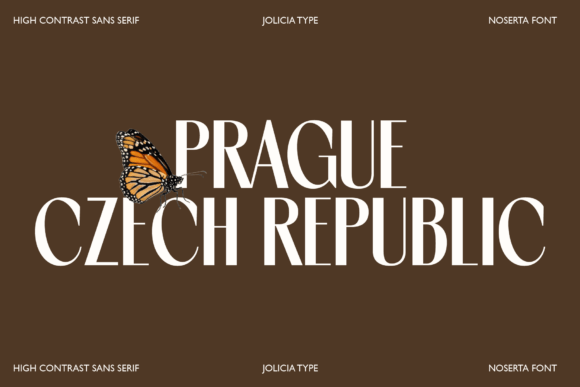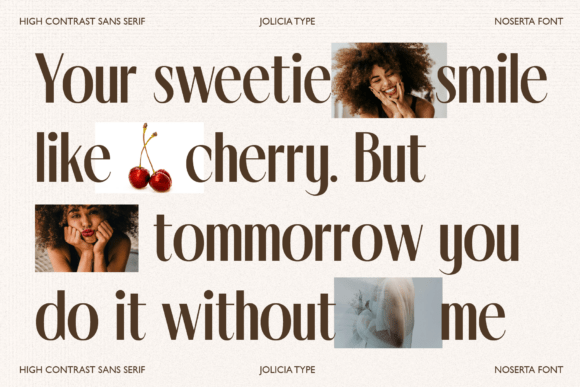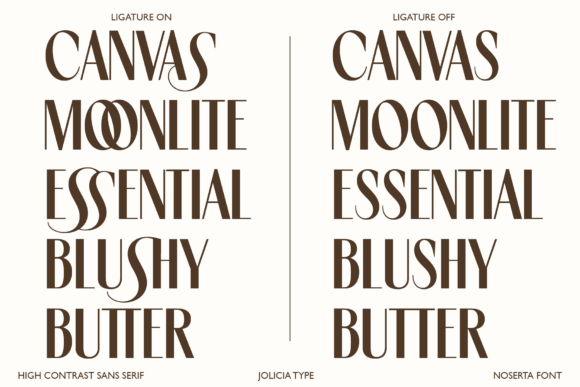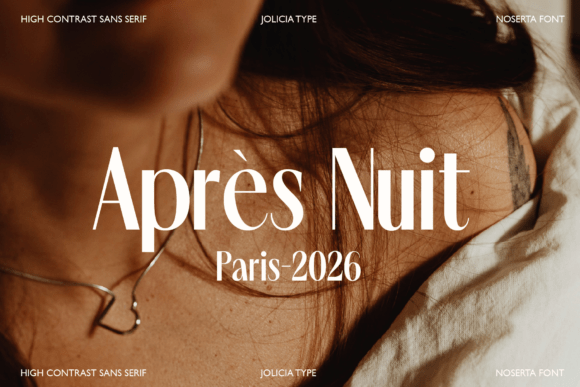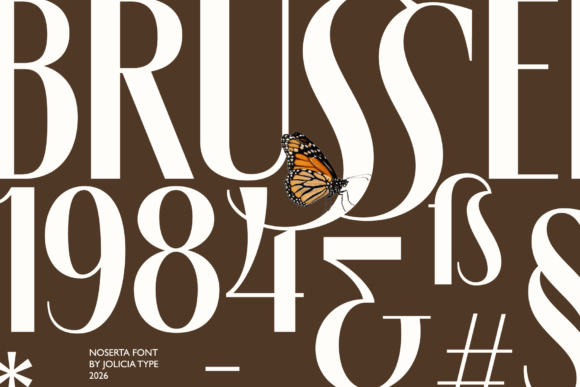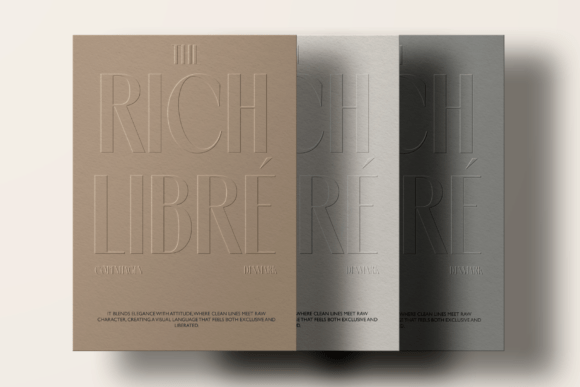
Introduction to Noserta Font
Noserta is a modern high-contrast sans-serif typeface crafted to deliver elegance, clarity, and a strong contemporary presence.
Designed with a refined balance between sharp vertical strokes and delicate thin lines, Noserta brings a luxurious yet confident character to any visual composition What truly sets Noserta apart is its unique ligature system , thoughtfully designed to create beautiful connections between pairs of letters.
Key Features of Noserta Font
Why Choose Noserta Font?